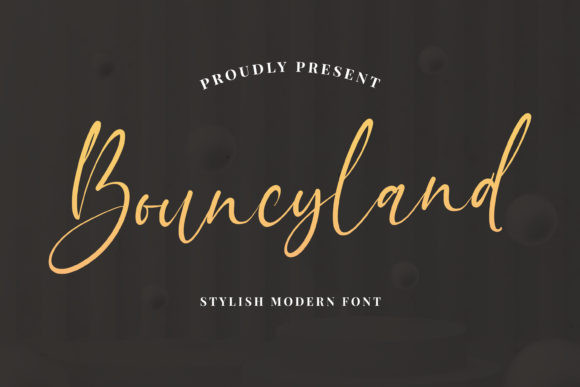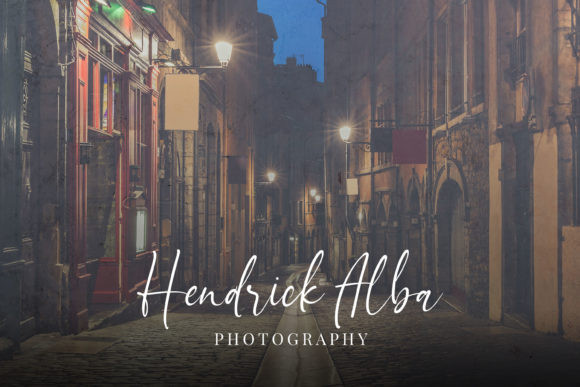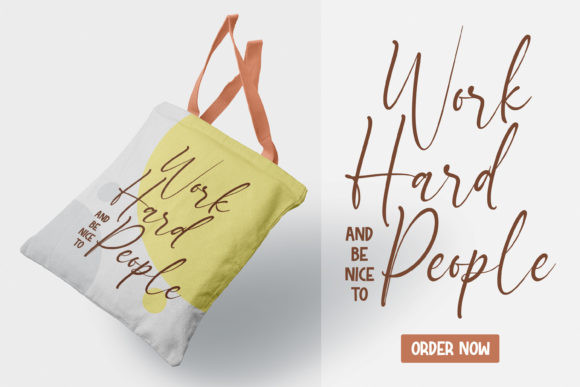
Bouncyland Font
Bouncyland is an elegant script font, that features a very delicate and classy look. Not too thin and not too thick, balanced and varied, this font was designed to enhance the beauty of your projects.